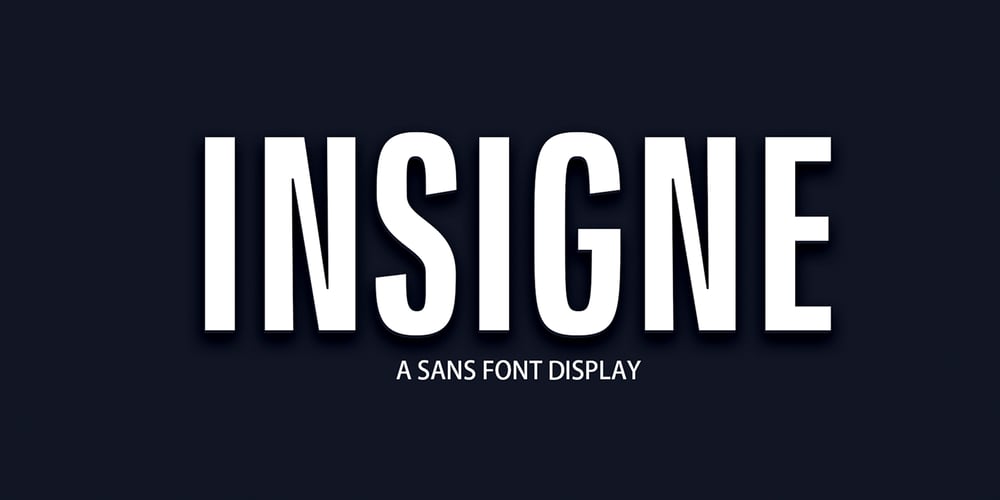
Insigne Display Font Family was designed by Afri Giani and published by Gian Studio. Insigne Display contains 1 styles and family package options. Insigne Display A bold, modern and fun display font that lives up to its name. The way you can uniquely combine the different parts of this font makes it a lot of fun to use! Perfect for all purposes. , Suitable for magazine design, logo design, headlines, posters, packaging, cards etc.Enjoy!